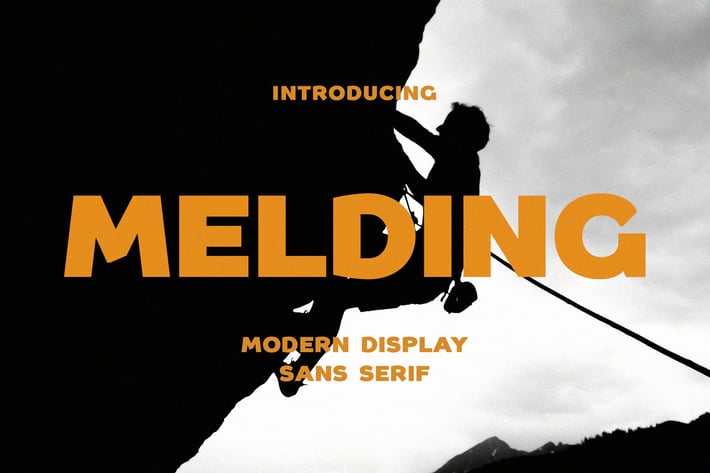
Melding - Modern Display Font
Introducing Melding Modern Display Font.
Melding is a masculine and modern font, best used as a display for headings, logos, branding, magazines, product packaging and invitations. Melding come with clean lines and smooth curves give any project an extra touch of class.